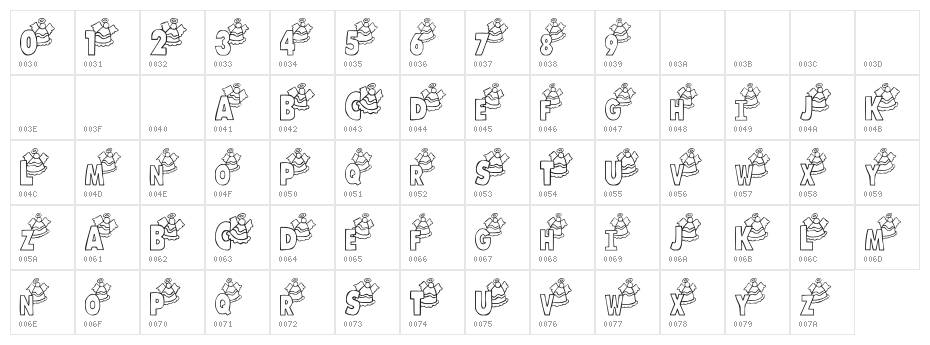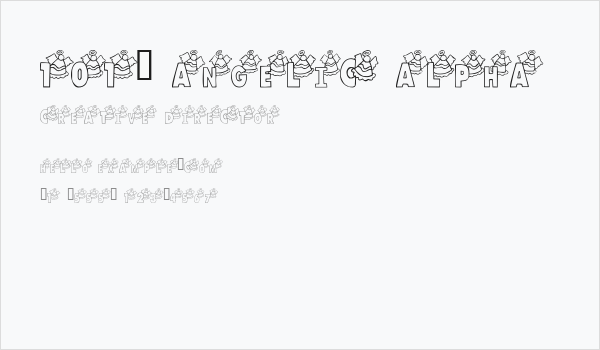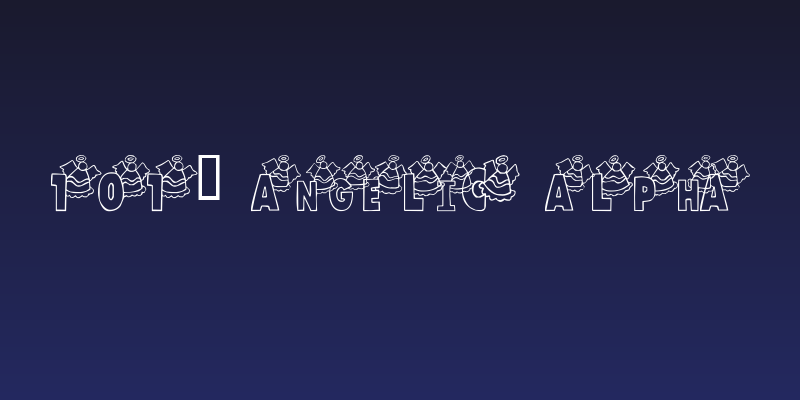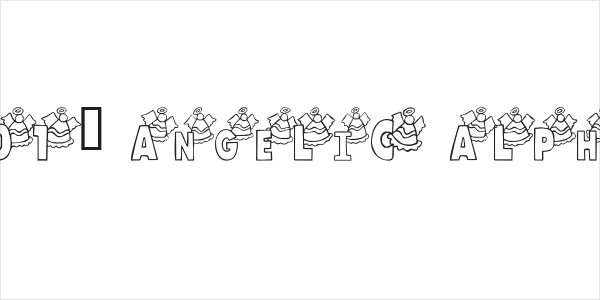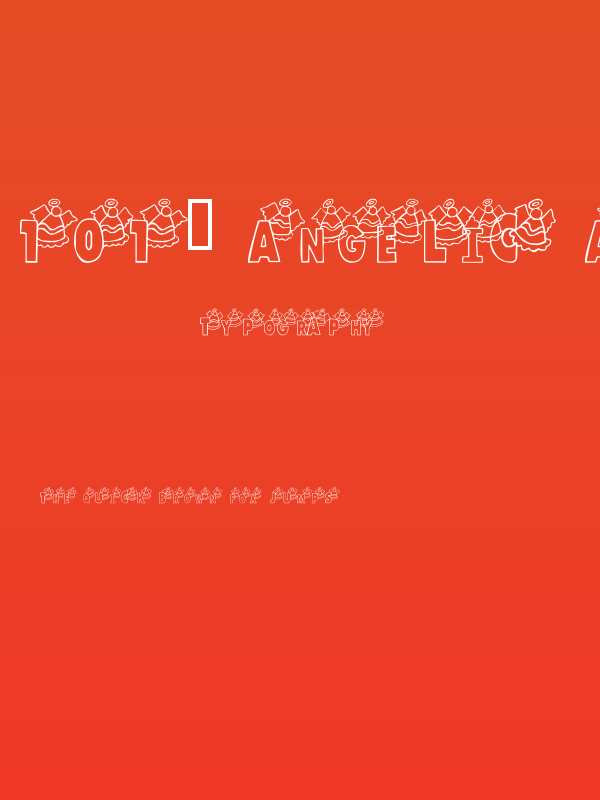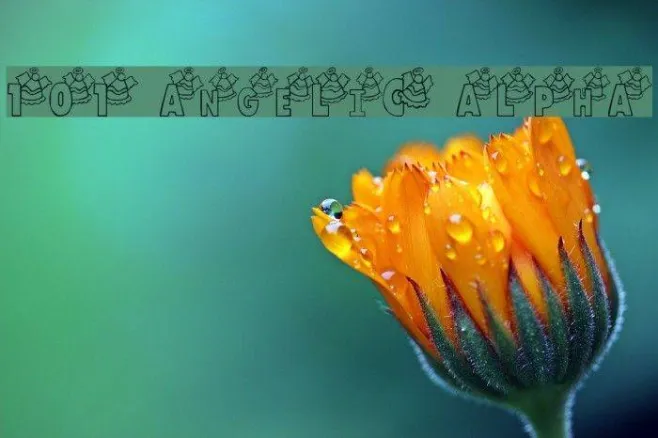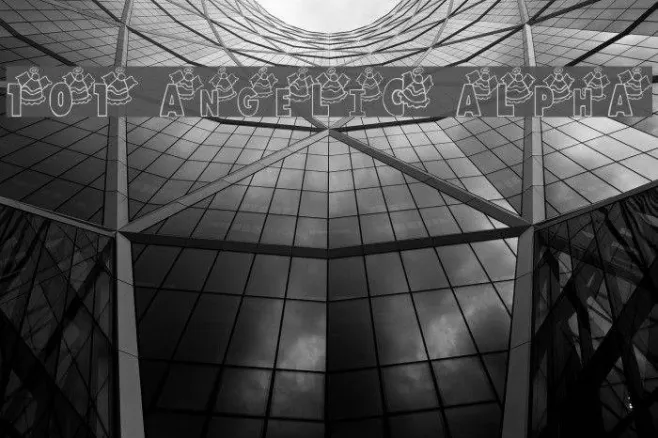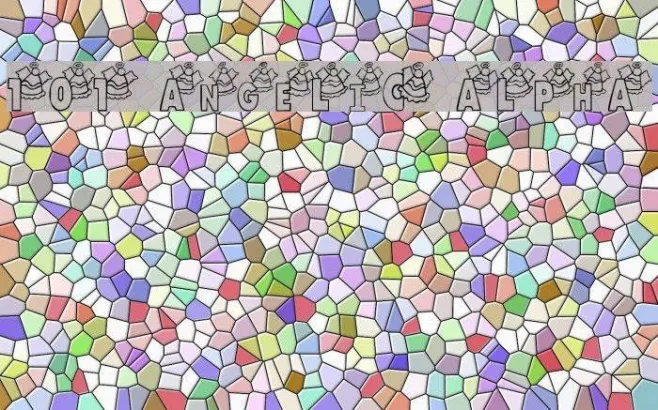
101! Angelic Alpha Font
101! Angelic Alpha Description
This decorative font features bold, uppercase letters adorned with charming angelic figures. Each character is uniquely styled with an angel motif, adding a whimsical and festive touch. The font is designed with a playful and creative flair, making it ideal for projects that require a touch of fantasy or holiday spirit. The characters are evenly spaced, ensuring readability while maintaining their decorative appeal. The font's unique style makes it stand out, perfect for eye-catching designs.
| Proposed Projects | Perfect for holiday cards, children's book covers, festive banners, and playful invitations. |